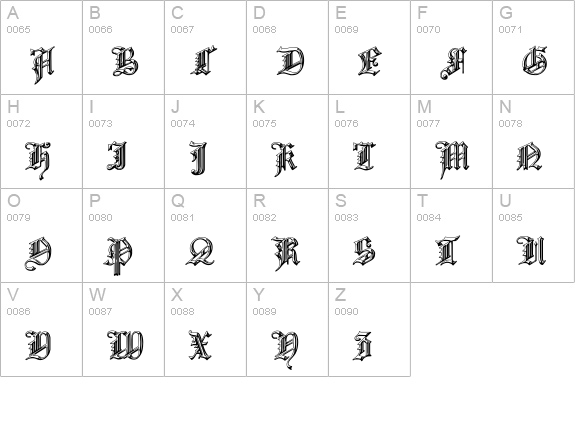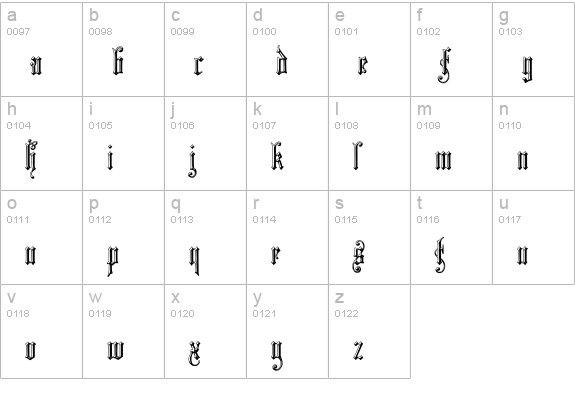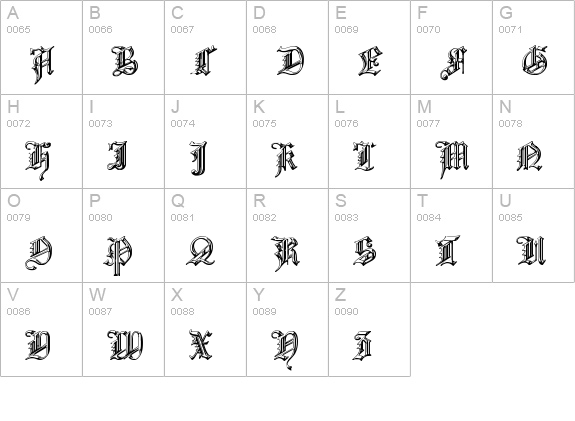
Introducing Church Text 'Shaded' font, a stunning and elegant typeface that adds a touch of sophistication to any project. The unique shading effect of this font gives it a dimensional and captivating appearance, making it perfect for creating eye-catching designs. Whether you're working on invitations, logos, or any other creative project, Church Text 'Shaded' font is sure to make a lasting impression. The best part? Church Text 'Shaded' font is completely free to download at FontsMarket.com. This means you can enhance your designs with this exquisite font without having to worry about any costs. So why wait? Elevate your projects with the beauty and charm of Church Text 'Shaded' font today!